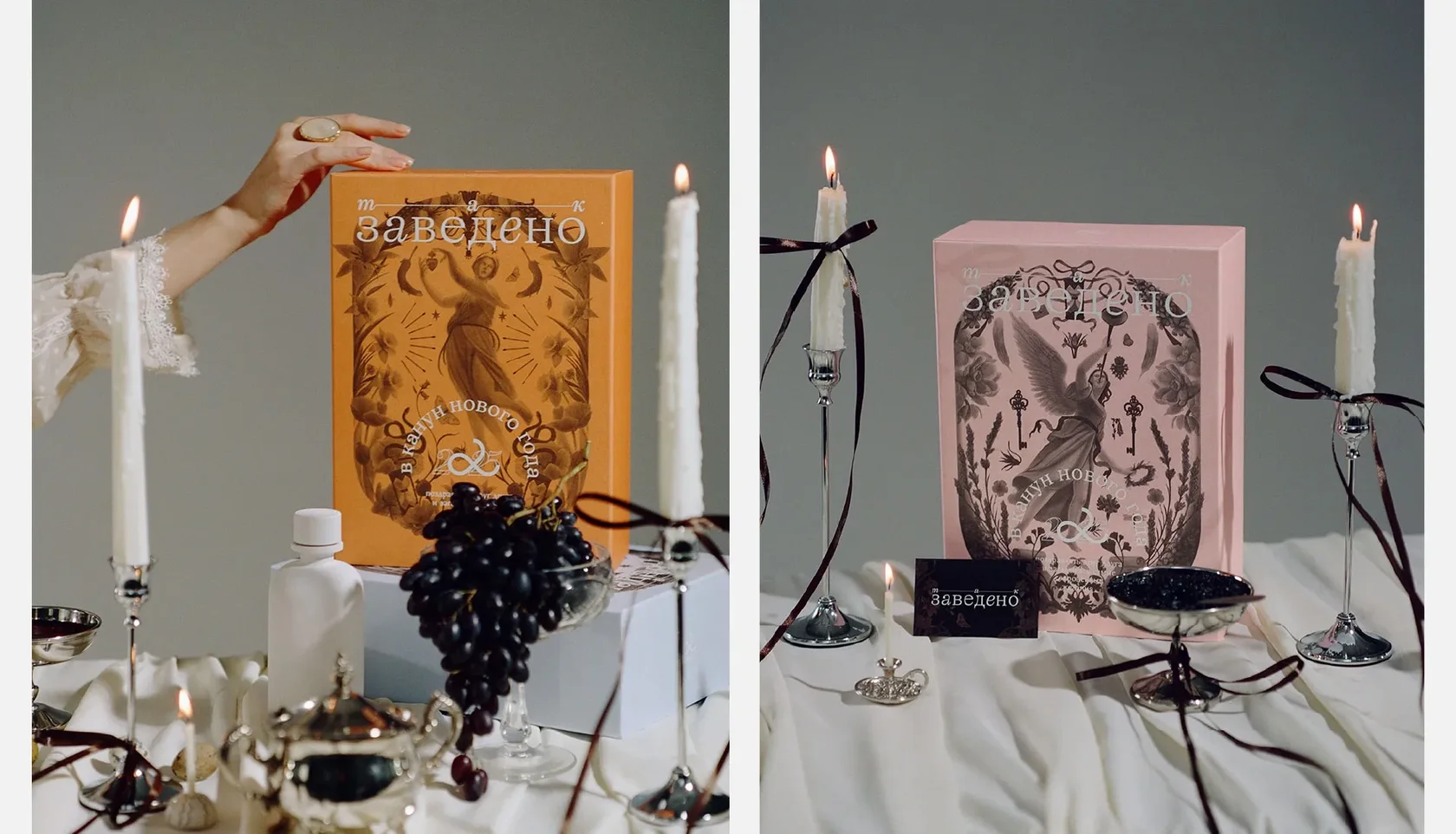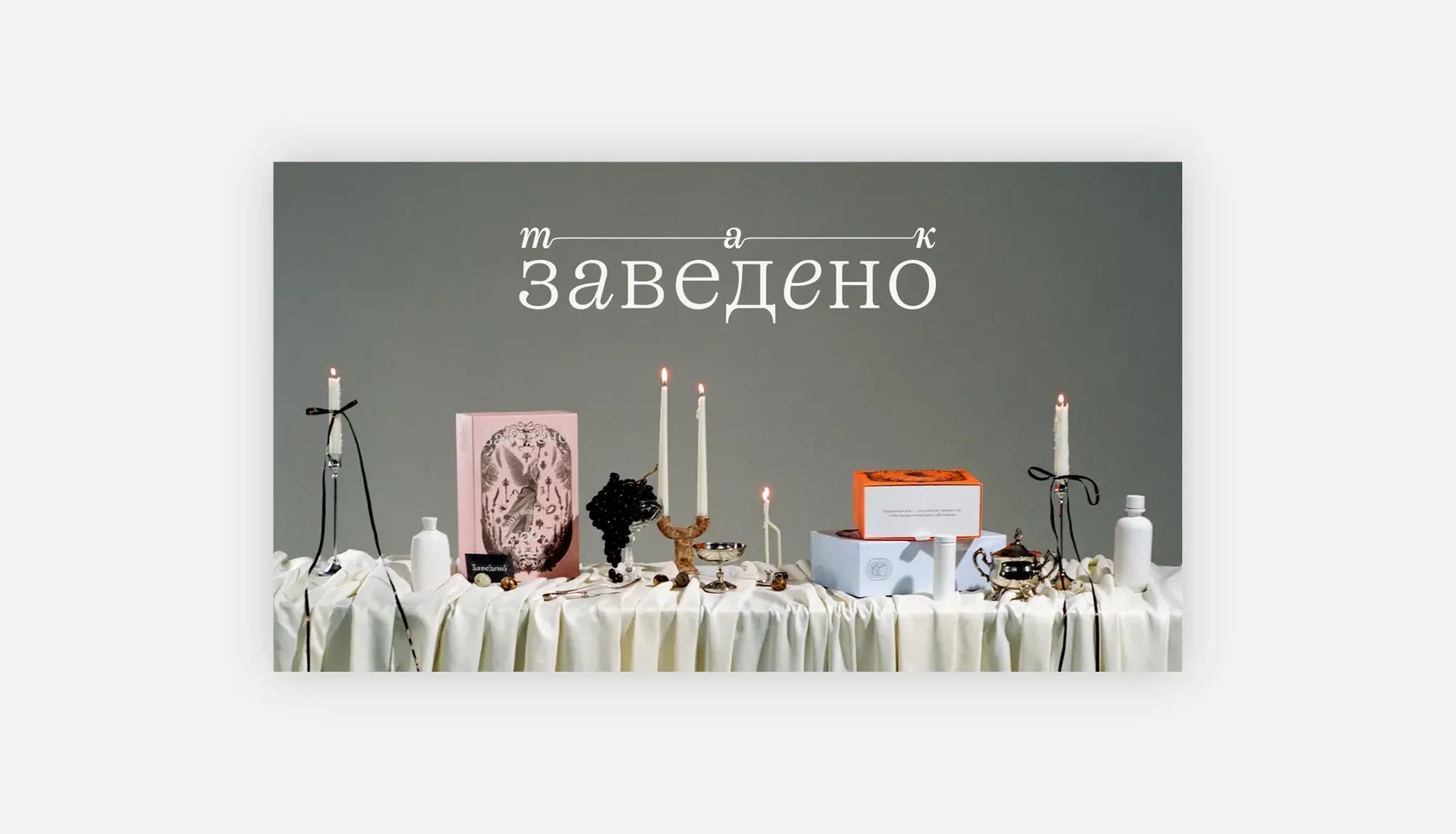
Authentica — Curated Beauty Collections
Font: SFT Schrifted Serif (Subhead Light, Subhead Light Italic, Subhead DemiBold Italic).
Use case: Packaging design.
About the Project:
Authentica, a purveyor of premium beauty products, annually crafts unique themed New Year sets that blend cultural narratives with their brand ethos. In their latest collection, “Так заведено” (”As is customary”), the packaging design draws inspiration from ancient Roman traditions, featuring deities associated with various aspects of the New Year ritual. The SFT Schrifted Serif typeface is prominently utilized across the packaging, lending an air of elegance and historical depth to the design. This choice enhances the storytelling aspect, connecting the product to its rich cultural inspiration.
Why SFT Schrifted Serif?
The selection of SFT Schrifted Serif aligns seamlessly with Authentica’s commitment to delivering not just products, but immersive experiences. The typeface’s classic yet contemporary design complements the thematic elements of the packaging, reflecting both the brand’s modernity and its appreciation for tradition. Its versatility ensures that the intricate details of the narrative are conveyed with clarity and aesthetic appeal, making the unboxing experience both visually pleasing and emotionally resonant.